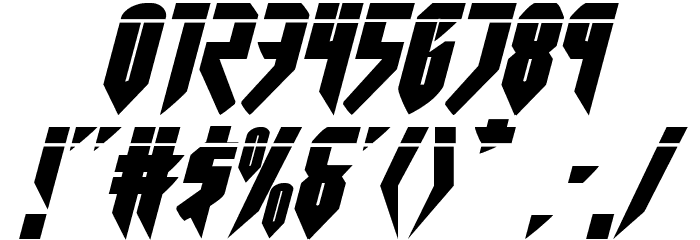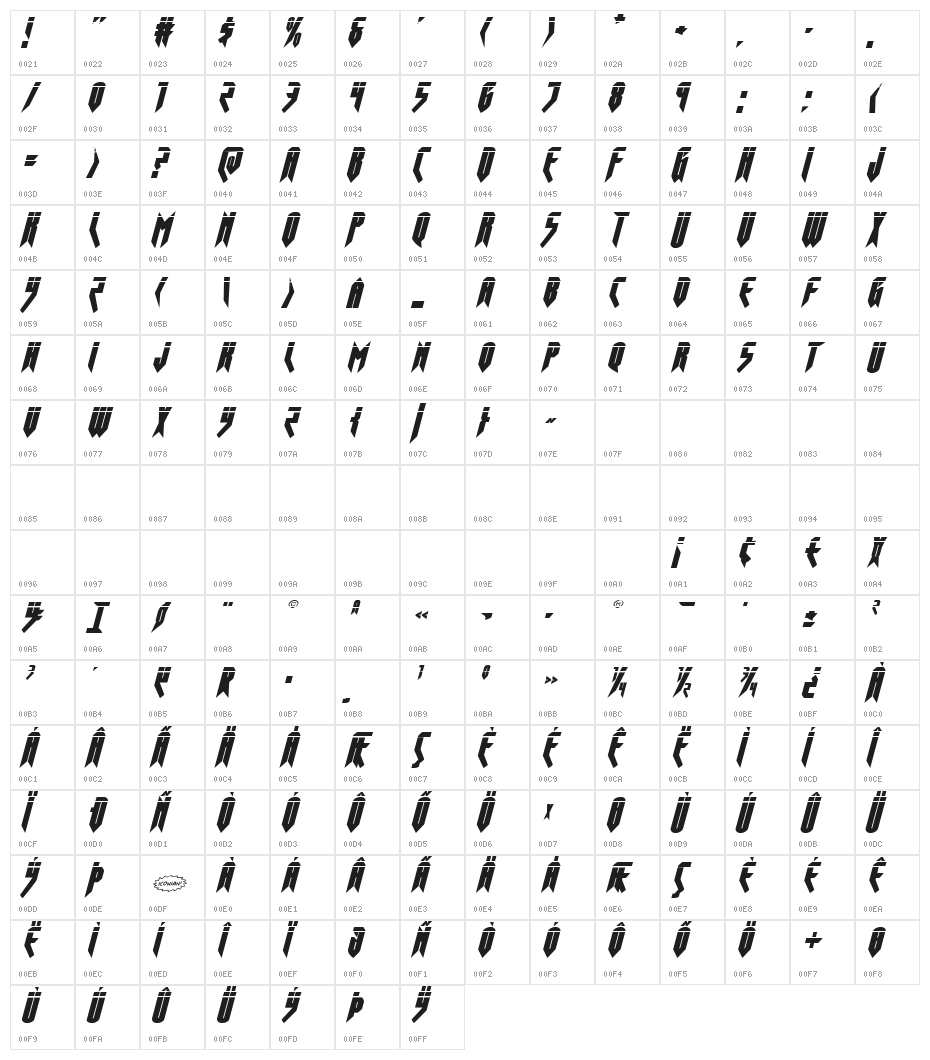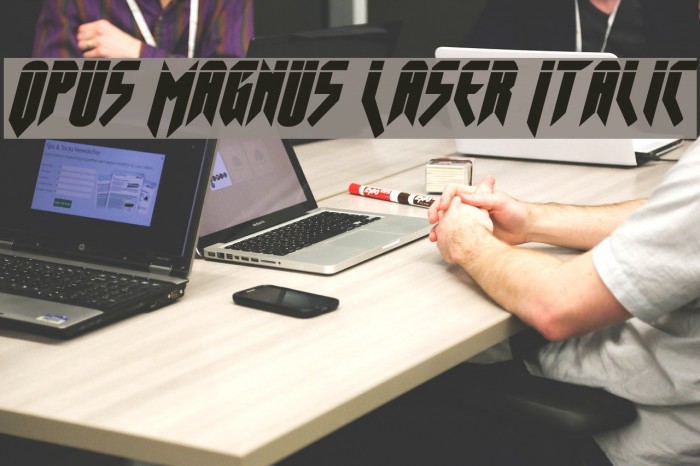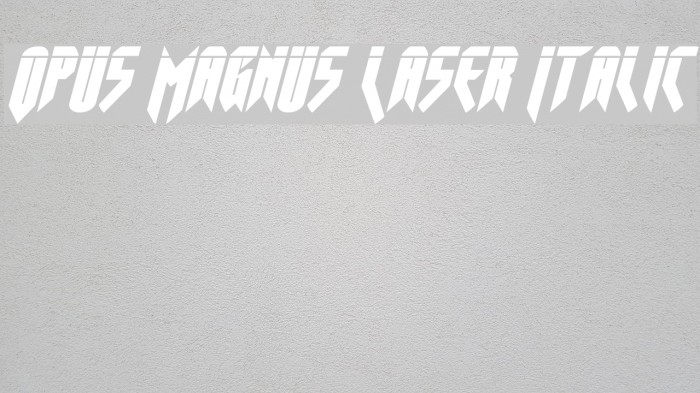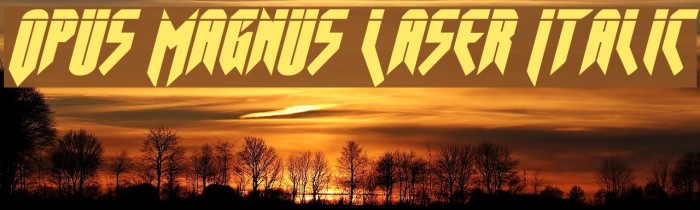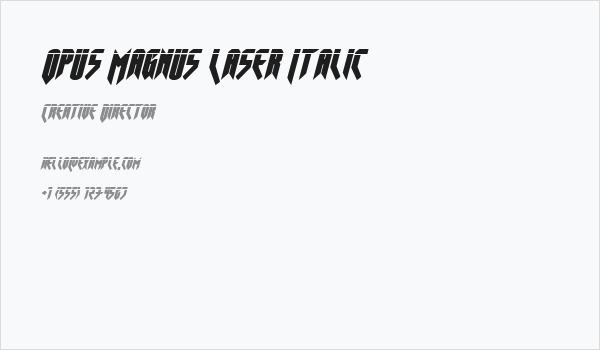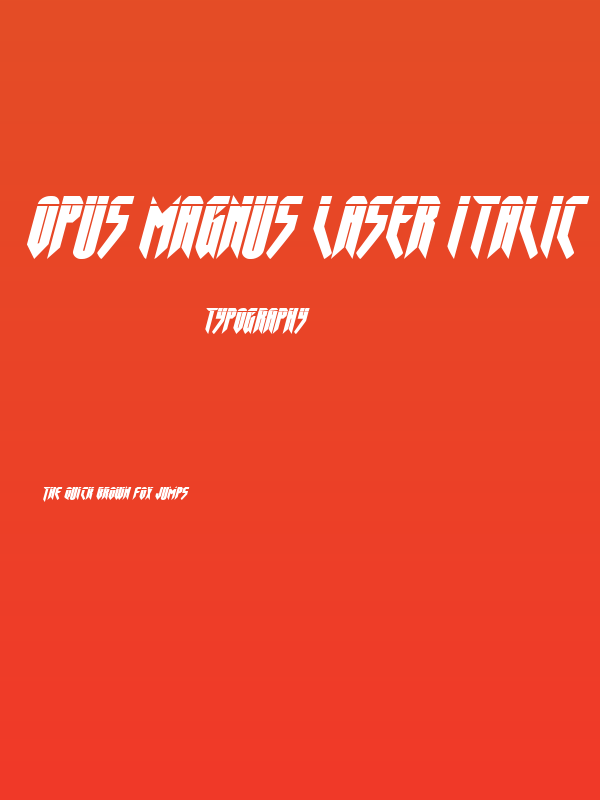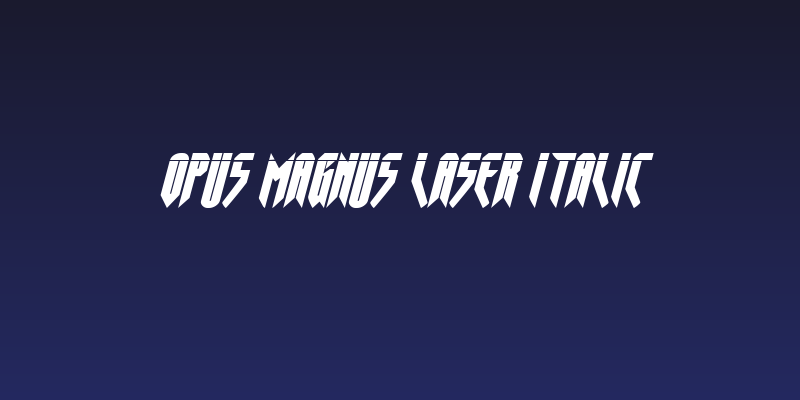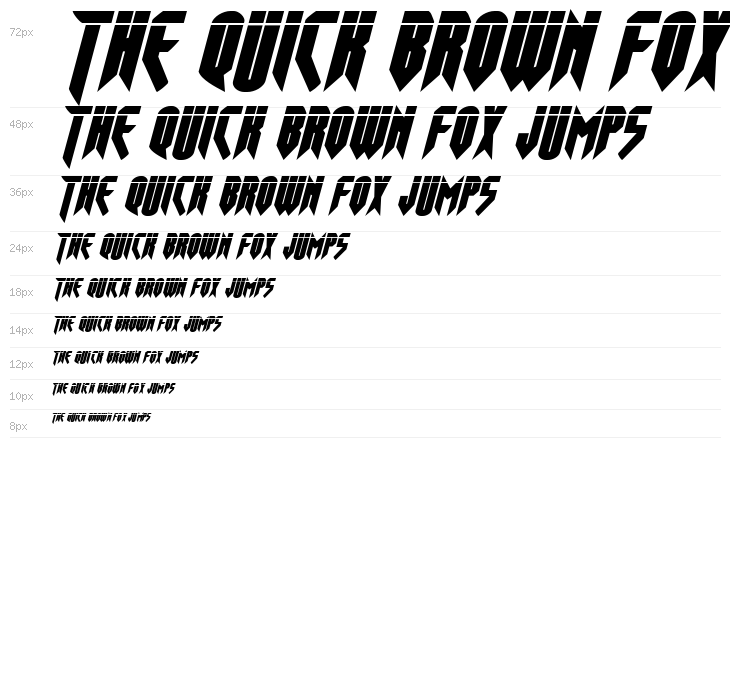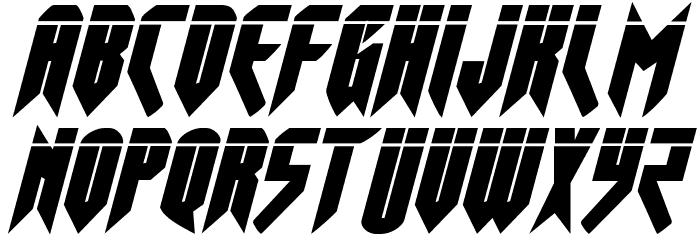
Opus Magnus Laser Italic Font
Opus Magnus Laser Italic Description
This font features a bold and dynamic design with sharp, angular lines and a futuristic aesthetic. The characters are heavily stylized, with a strong emphasis on geometric shapes and diagonal cuts, giving it a striking and aggressive look. The uppercase and lowercase letters maintain a consistent style, with each character exhibiting a unique angular form. The numerals and special characters follow the same design principles, ensuring uniformity across the font. This font is ideal for projects that require a modern and edgy appearance, such as sci-fi themed designs, video game titles, or branding for tech companies.
| Proposed Projects | Ideal for sci-fi designs, video game titles, tech branding, and futuristic themes. |